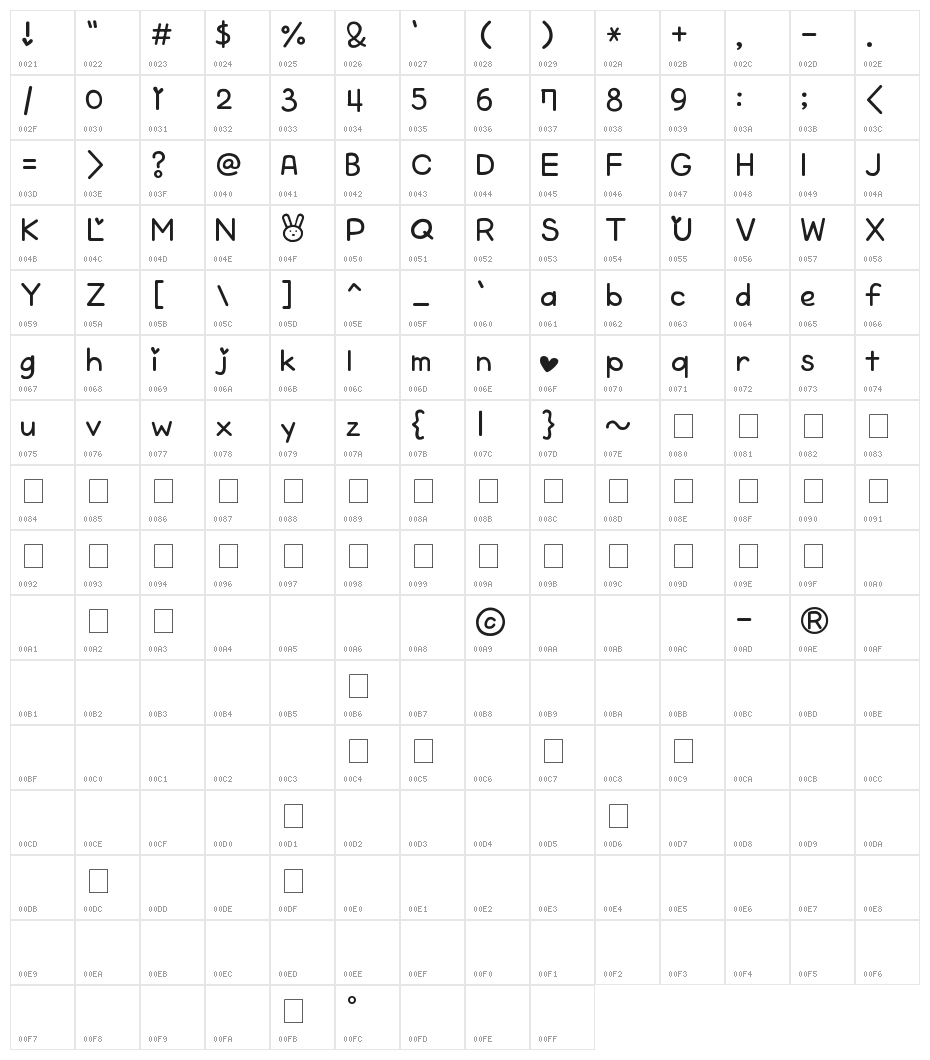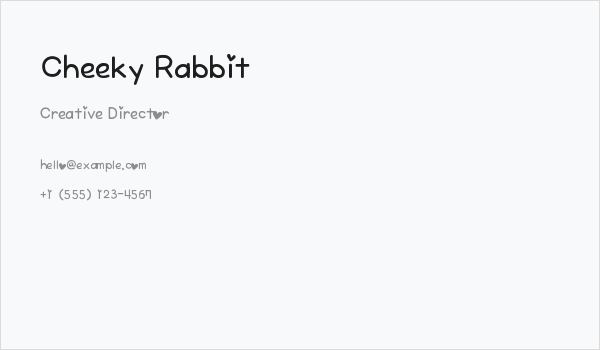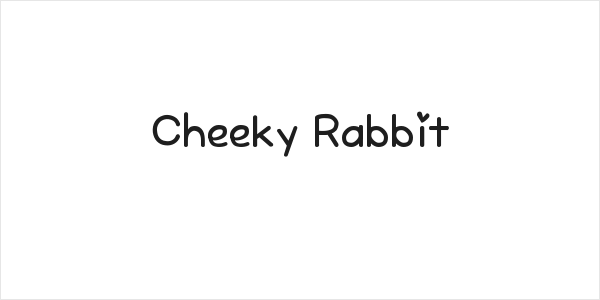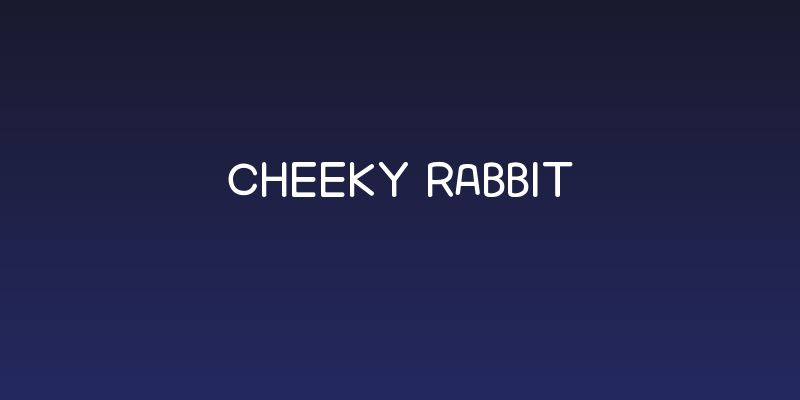
Cheeky Rabbit Font
| Gesamtstil | Playful, Whimsical |
| Vorgeschlagene Projekte | Ideal for children's books, playful branding, greeting cards, and creative posters. |